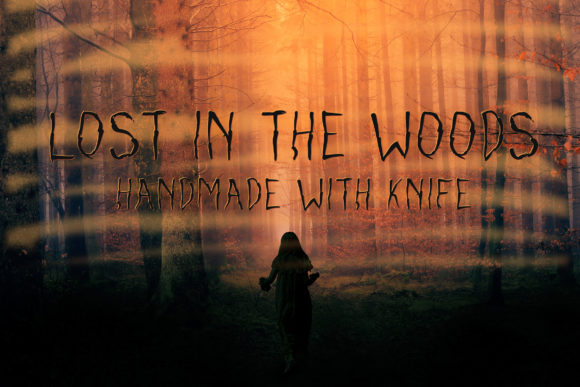
Welcome to the world of Lost in the Woods Font, a sans serif font family crafted by the ingenious Dasagani. Prepare to be enthralled by its unique charm, a captivating blend of creepiness and roughness that will leave an indelible mark on your designs.
Lost in the Woods is not just a font; it's an experience that transports you to a mystical forest, where every letter is etched into the bark of ancient trees. Its captivating glyphs, meticulously carved with the precision of a seasoned woodsman, evoke a sense of adventure and exploration.
With Lost in the Woods, your designs will transcend the ordinary and embark on an extraordinary journey. Whether you're creating logos, posters, or website designs, this font will add an irresistible allure that will captivate your audience. Unleash your creativity and let Lost in the Woods guide you through enchanting forests of design possibilities.
"Lost in the Woods is the perfect font for my horror-themed project. It adds a chilling atmosphere that perfectly captures the essence of the story." - John S., Graphic Designer
"This font is a game-changer for my branding. It gives my logo a rugged, outdoorsy feel that resonates with my target audience." - Jane D., Entrepreneur
"Lost in the Woods is simply stunning. I used it to create a poster for my upcoming concert, and the response has been overwhelmingly positive." - Mike C., Musician
So, why settle for ordinary fonts when you can embrace the captivating allure of Lost in the Woods? Its unique style and versatility will transform your designs into captivating creations that leave a lasting impression.